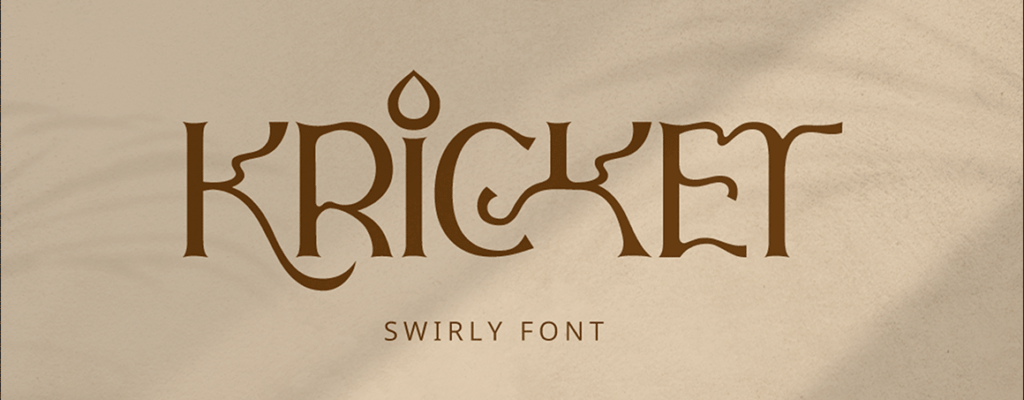
About the Product : Kricket is a Modern Serif Font, created with unique design. the parts of the font is simply watery looks inspired by ocean wave. this font comes with some ligatures and alternates, and already PUA encoded for easily accessed into optional Glyphs. This font Font is simply designed to ease any design … Continue reading Kricket